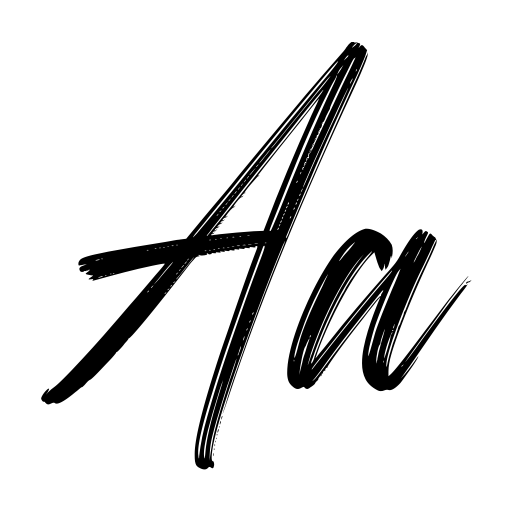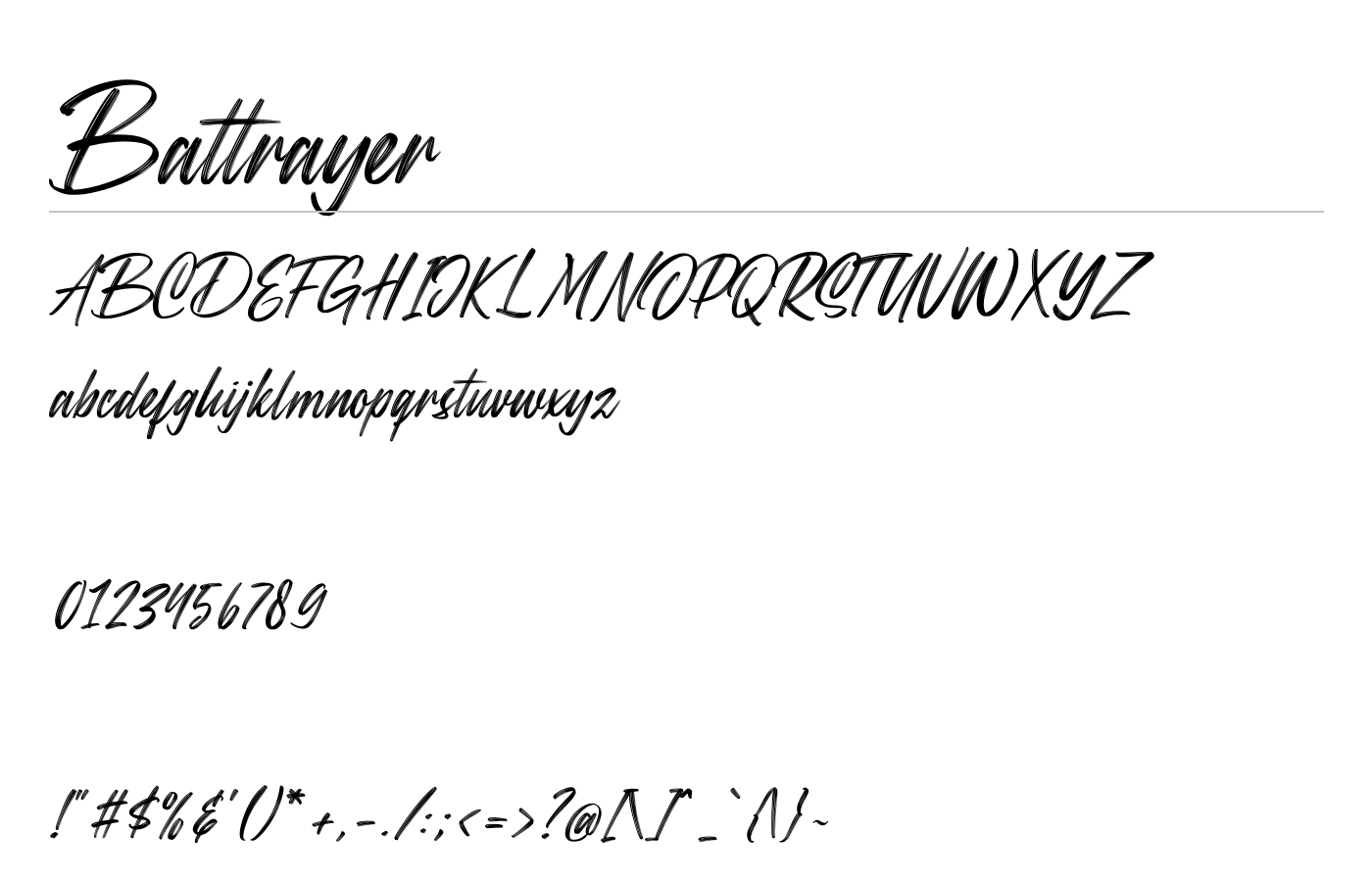
Battrayer is a lively script font with smooth, flowing strokes and a casual yet elegant style. Its moderate weight and natural brush-like texture give it an energetic, handcrafted feel, making it perfect for creative branding, invitations, and expressive headlines. This font adds a personal, artistic touch that works well where a dynamic and friendly vibe is desired.
Battrayer Font
About Battrayer Font